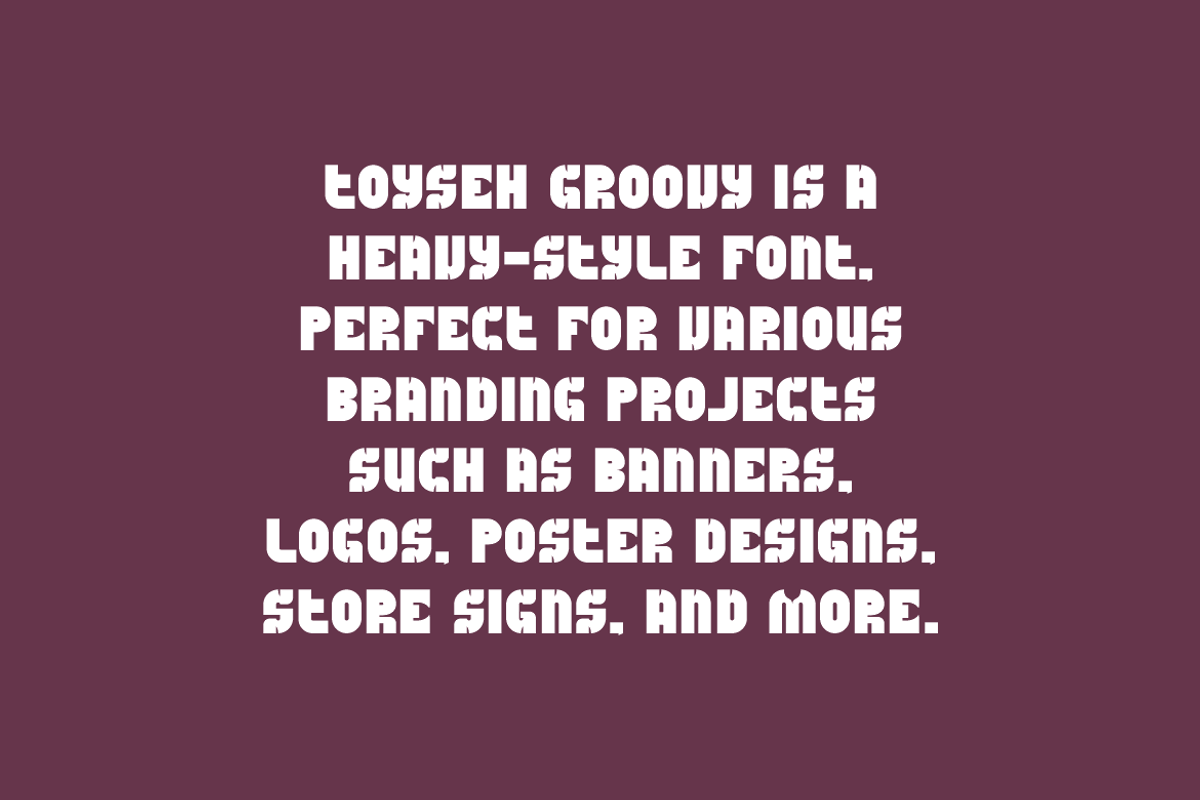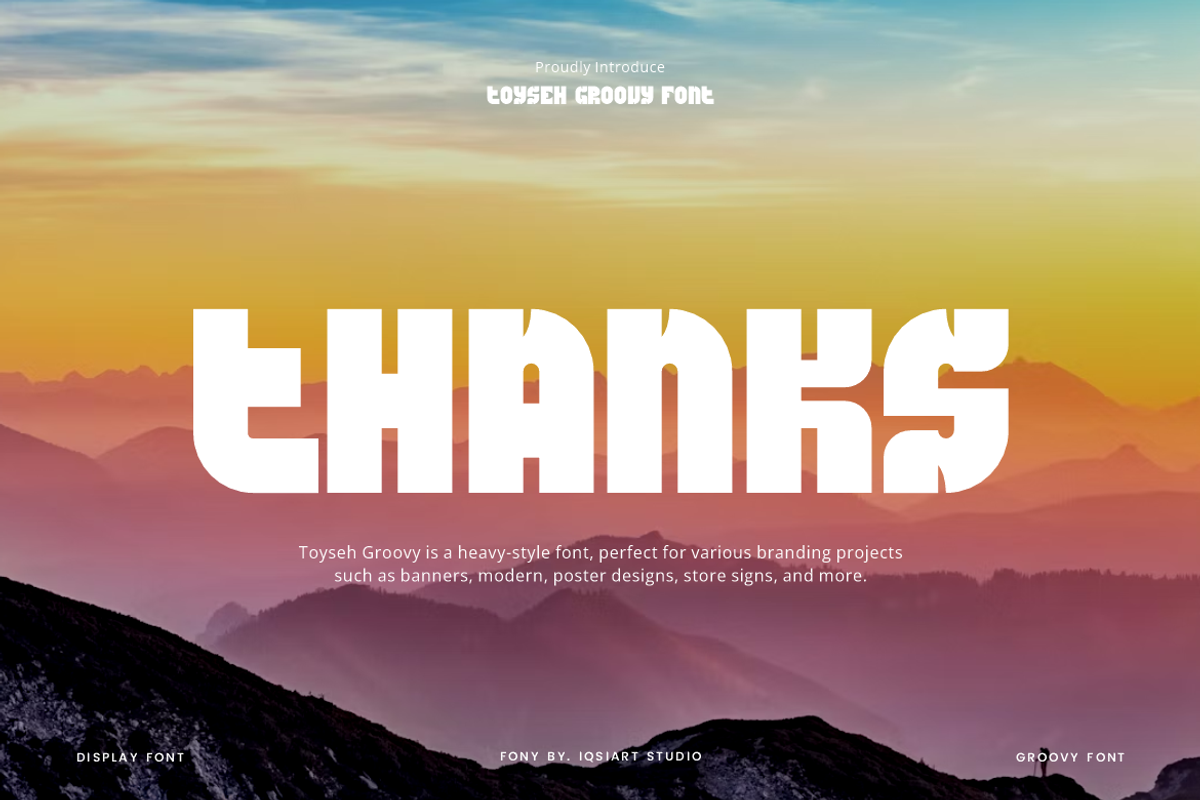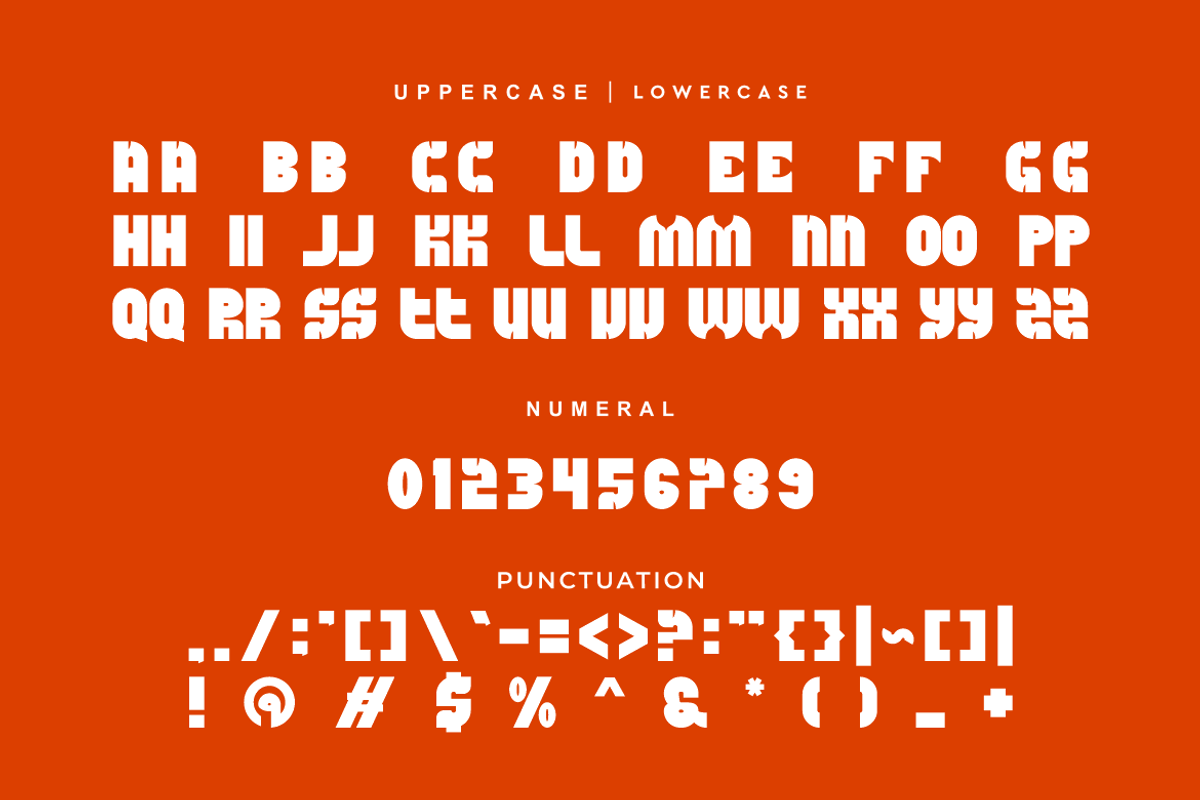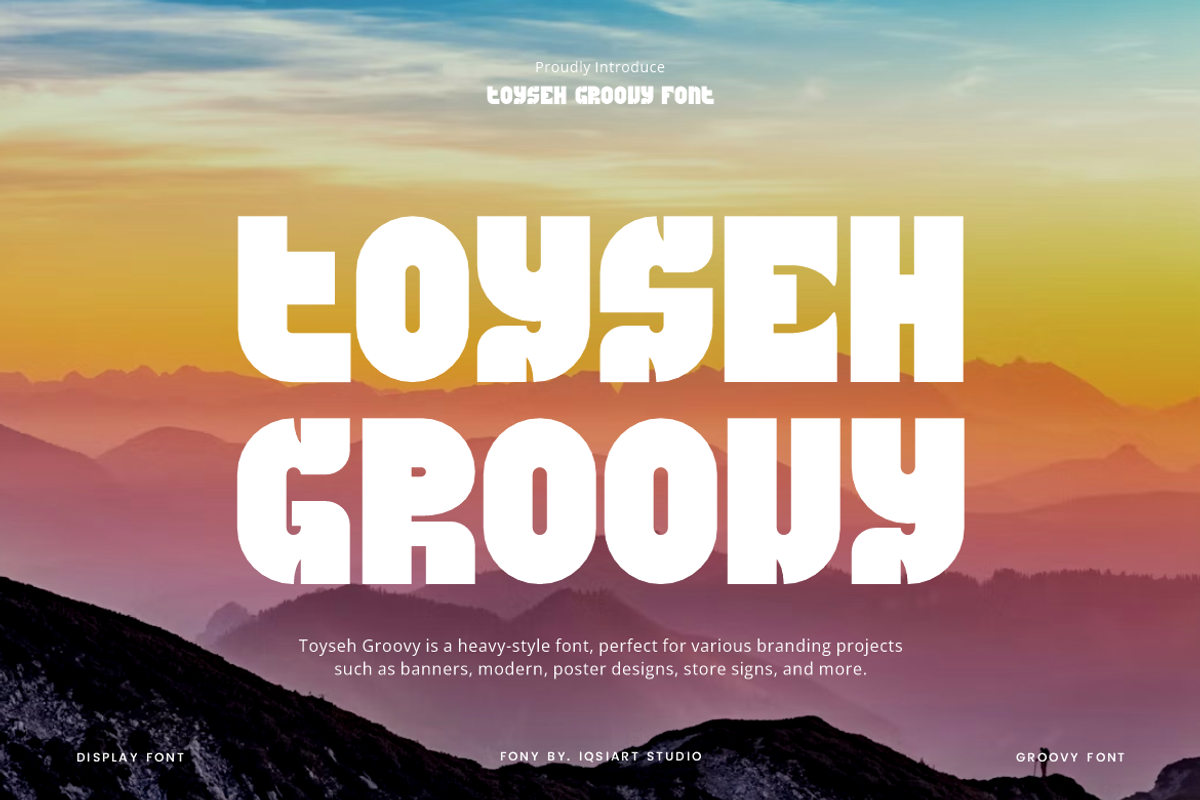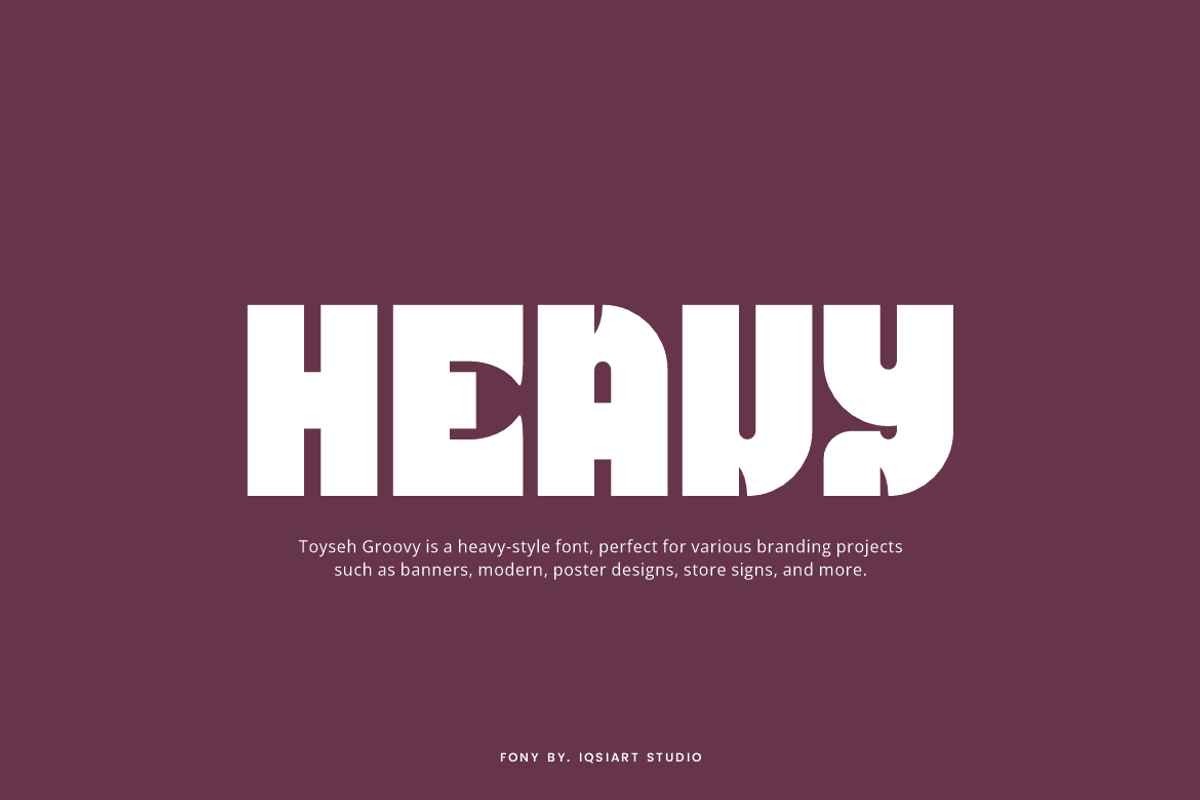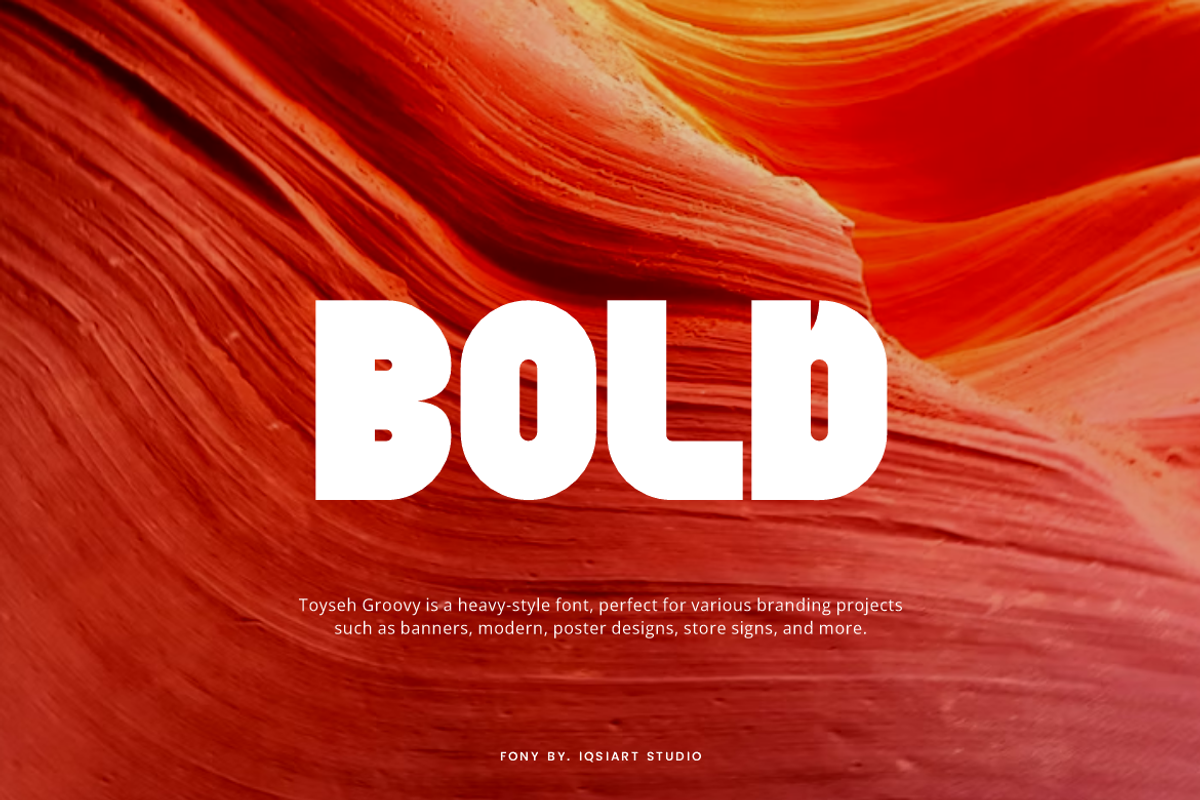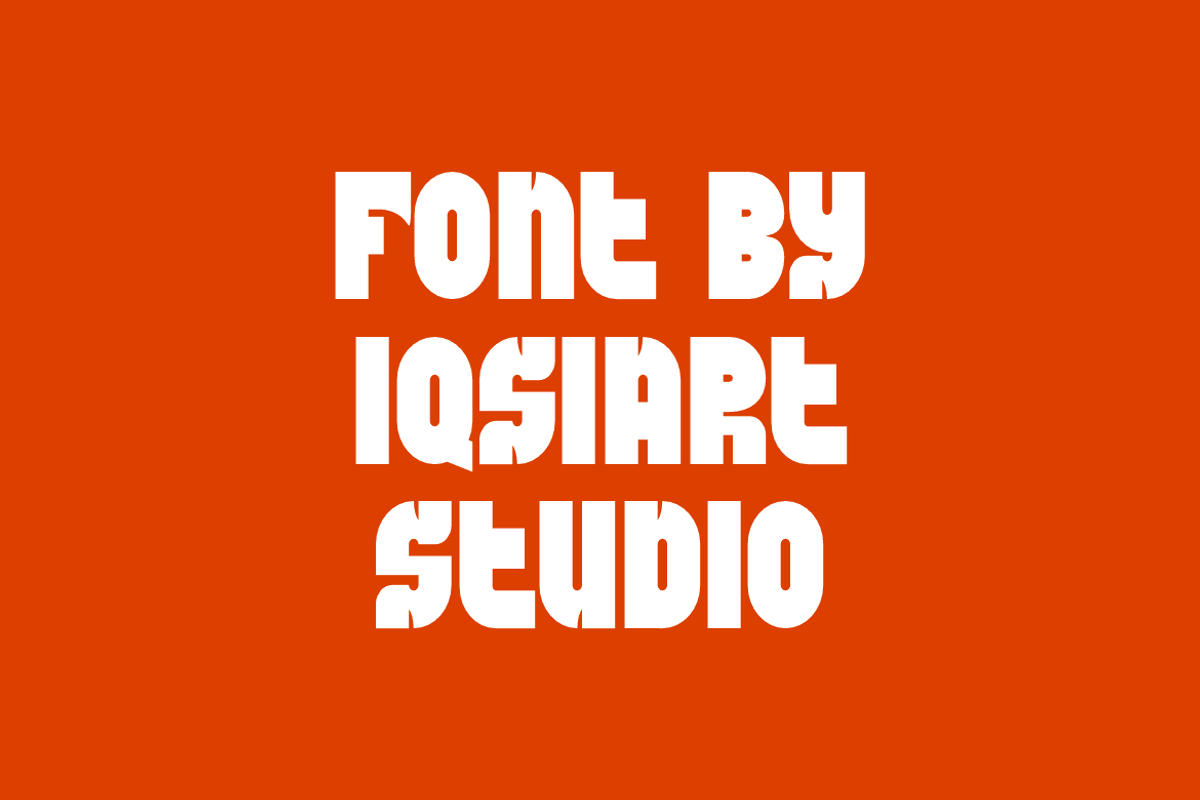
Toyseh Groovy - Heavy Font
Toyseh Groovy Font is a bold and authentic display typeface that suits a variety of design needs. We offer a wide range of themes and font styles — visit our profile to explore more and find the perfect style for your project.